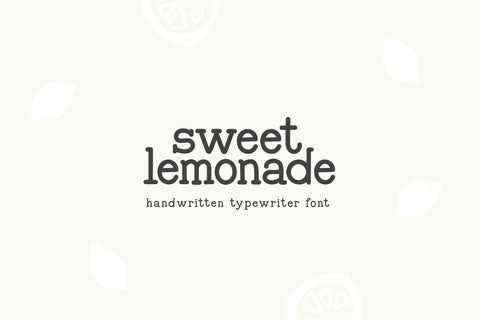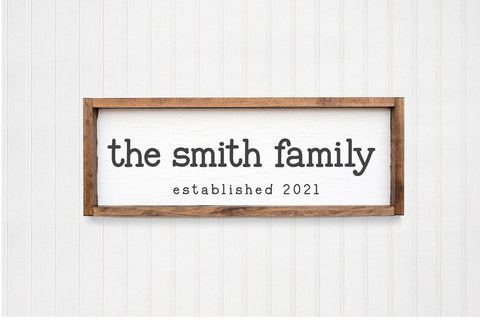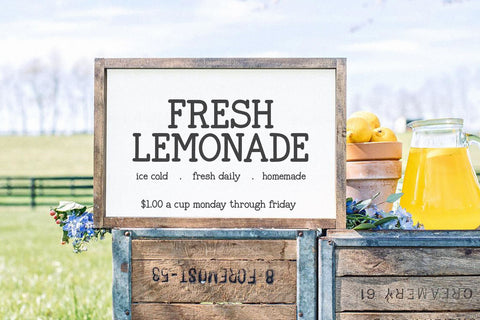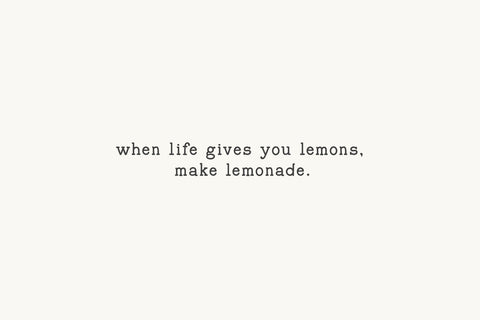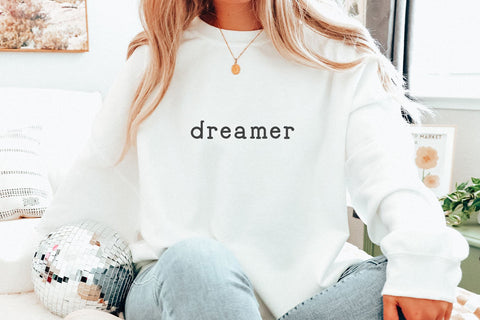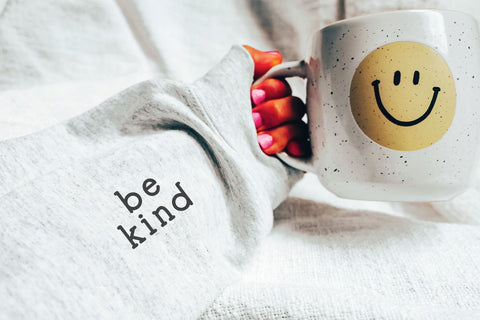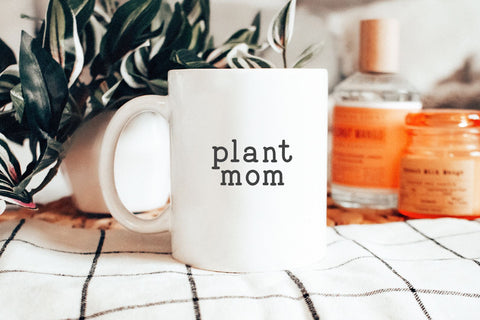
Sweet Lemonade - Handwritten Typewriter Font
Sweet Lemonade is a handwritten typewriter style font.
This font is perfect for farmhouse designs, cricut projects, quotes, goodnotes, planners, logos, teachers and more!